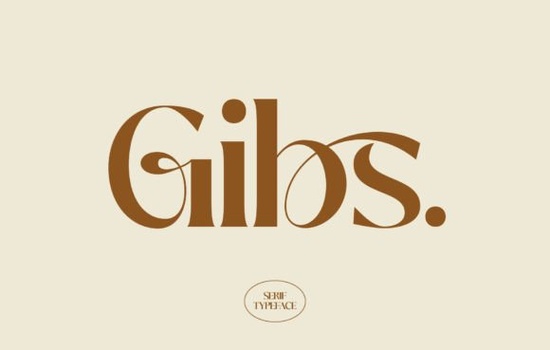
If you're looking for a serif font that feels both timeless and quietly confident something that works just as well on a boutique business card as it does in a printed magazine layout Gibs Font is worth your attention. It’s not flashy or overly decorative, but its refined serifs and balanced proportions give it quiet authority. Whether you’re designing for a small local brand, preparing files for print-on-demand products like mugs or greeting cards, or laying out a personal zine, Gibs brings clarity and calm elegance without demanding the spotlight.
What kind of projects is Gibs Font best suited for?
Gibs sits comfortably between classic and contemporary. Its letterforms are carefully spaced and weighted, making it highly legible at smaller sizes ideal for body text in editorial work. At larger sizes, it holds presence without heaviness, so it shines in logos, headlines, and packaging for lifestyle, wellness, or artisanal brands. Think: a ceramic studio’s website header, a wedding invitation suite, or a small-batch coffee label. It’s especially effective when paired with clean sans-serifs for contrast, or layered with subtle textures in digital mockups.
Because it’s a serif font, it naturally supports themes of tradition, craftsmanship, and trust qualities many small businesses and creative sellers want to reflect. If you’ve used fonts like The Simple Editorial Font or Sharp History Font, you’ll recognize Gibs’ similar attention to typographic rhythm and readability but with a softer, more approachable stance.
How does Gibs compare to other serif fonts on Creative Fabrica?
Unlike high-contrast Didones (think Bodoni or Didot), Gibs avoids dramatic thick-thin transitions, which makes it more versatile across screen and print. It’s also less ornate than many vintage-inspired serifs so it won’t clash with modern layouts or minimalist branding. Compared to Sweetberry Serif Font, Gibs leans more neutral and structured; while Sweetberry adds gentle warmth and character, Gibs offers steadier grounding. And if you’re already exploring serif options, the Modern Serif Bundle includes Gibs alongside complementary styles great if you need pairing options for headings and body text in one go.
You’ll find Gibs listed under serif fonts, where it fits neatly among thoughtful, production-ready typefaces not novelty fonts or display-only scripts. That means it comes with full Latin character sets, standard punctuation, and often OpenType features like ligatures or alternate glyphs (check the product page for exact specs). No surprises at export time.
Who benefits most from using Gibs Font?
- Print-on-demand sellers: Works reliably across platforms like Printful or Redbubble clean outlines render crisply on mugs, tote bags, and notebooks.
- Crafters & hobbyists: Friendly for Cricut and Silhouette users especially if you’re cutting vinyl or engraving wood signs with elegant, readable lettering.
- Designers building brand identities: Offers enough distinction to feel intentional, but enough neutrality to stay flexible across applications.
One practical note: Gibs doesn’t try to do everything. It’s not a variable font, nor does it include handwritten alternates or dingbats. That’s intentional it’s built for clarity first. If you need expressive flair, pair it thoughtfully: try The Simple Editorial Font for tighter, newsy contrast or Sharp History Font for a bolder historical echo.